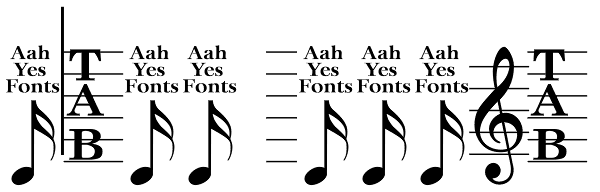
Music Sheets
Music Sheets is a font that will produce blank music manuscript sheets, giving the main Clefs, Time Signatures, Stafflines, Guitar Tab, plus other useful symbols - in fact all you need to make simple manuscript of your own design, so you can put in...